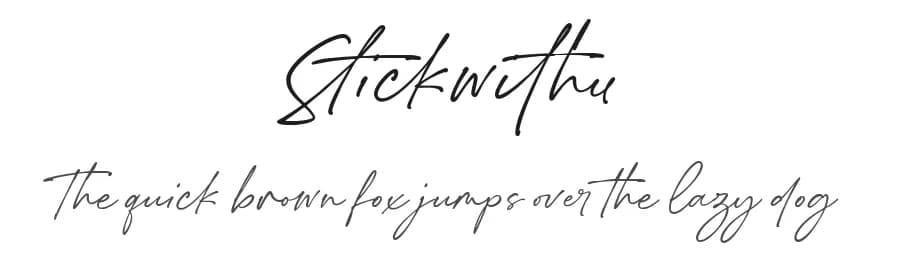
About Stickwithu Font
| Glyph Count | 190 glyphs |
| Designer | Redy Studio |
Stickwithu ships with 1 OpenType feature you can switch on in apps that support them (Illustrator, InDesign, Affinity, Figma, CSS font-feature-settings).
Stickwithu Font is a script font that shines as a display or heading face. Pair it with a clean sans-serif or serif font for body text β the contrast creates a clear hierarchy while the two styles stay balanced and easy to read.
Stickwithu Font
by Redy Studio